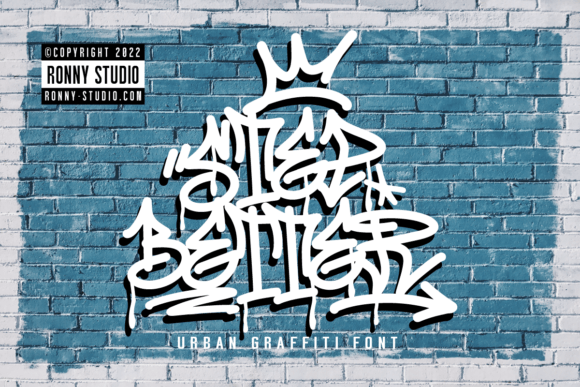
Embark on a typographic adventure with Step Better Font, an artistic masterpiece crafted by Ronny Studio. Dive into the vibrant world of street art and hip-hop, where every letter dances with an unparalleled swagger. The bold strokes and playful curves of Step Better embody the energy and creativity of these vibrant subcultures.
Unleash your artistic potential with this remarkable display font. Its captivating charm is perfect for transforming your designs into eye-catching posters, props, and more. Step Better Font isn't just a font; it's a gateway to a world where your words come alive with the raw energy of the streets.
But why settle for ordinary when you can embrace the extraordinary? Step Better Font transports you to the heart of urban expression, empowering you to make a statement that resonates. Its versatility knows no bounds, allowing you to create designs that ooze personality and leave a lasting impression.
So, whether you seek to capture the essence of street art or infuse your designs with a touch of hip-hop flair, Step Better Font is your go-to choice. Let your creativity soar and watch as your words take on a new life, brimming with the vibrant spirit of the streets.